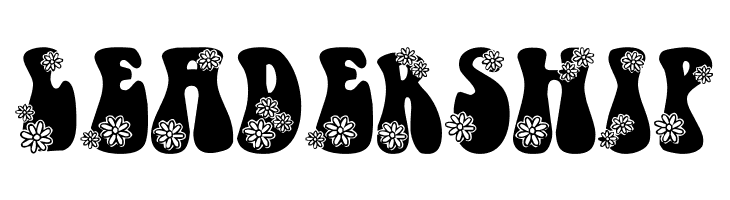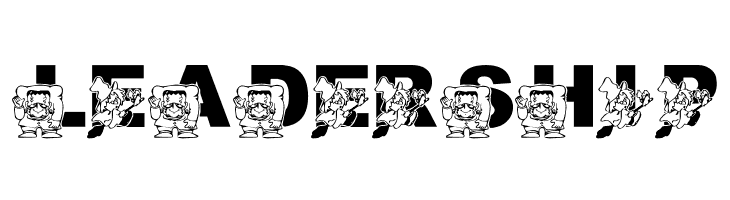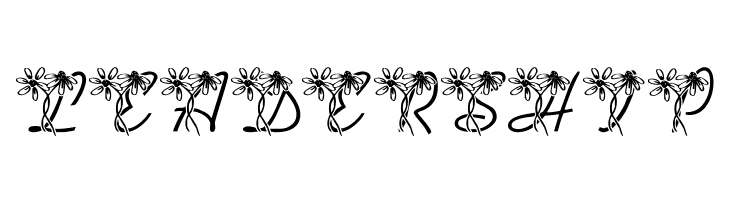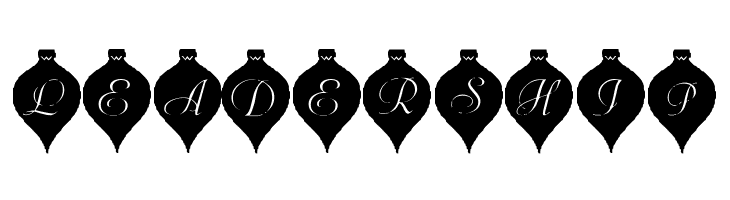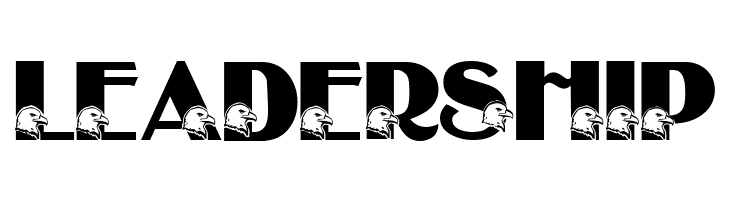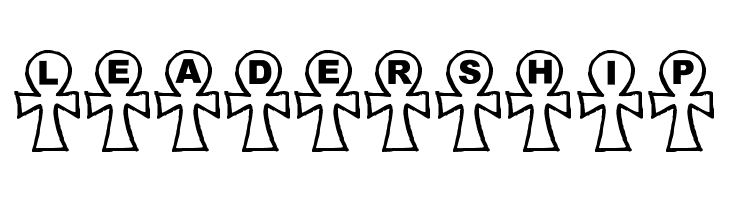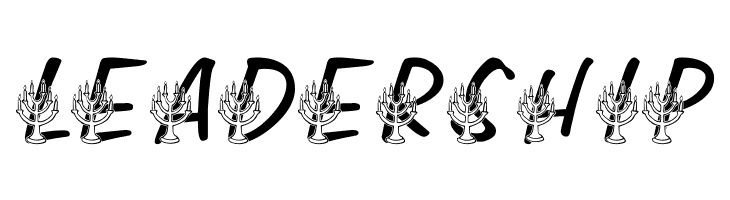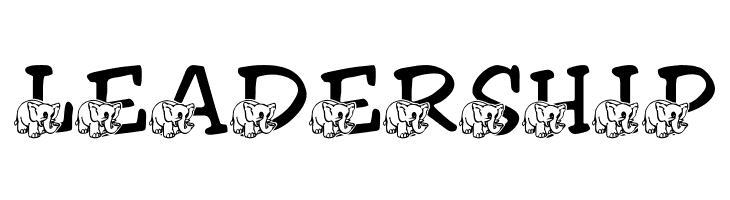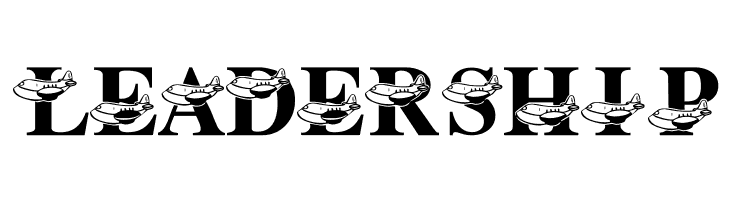
A playful font with bold letters and cartoon characters in costumes.
A whimsical font with daisy-like floral embellishments on each character.
An elegant, ornament-themed decorative font with high contrast script characters.
A bold, decorative font featuring an eagle motif integrated into each letter.
A playful font with soccer ball motifs, ideal for sports-themed designs.
A decorative font with an integrated ankh symbol in each character.
A bold, decorative font with integrated face illustrations in each letter.
A whimsical, castle-themed decorative font with bold, enchanting characters.
A decorative font with bold, italicized letters and candelabra motifs for a festive look.
A bold, decorative font with floral patterns integrated into each character.
A bold, playful font with elephant illustrations accompanying each letter.
A bold serif font with integrated airplane illustrations for a playful touch.
A bold, playful font with cartoon characters embedded in each letter.
A decorative, floral-patterned uppercase font perfect for enchanting designs.
A whimsical, cartoon-inspired font with bold, script-like letters and playful characters.
A bold, decorative font featuring unique emblematic designs within each character.
A decorative script font with integrated butterfly motifs.
A festive, decorative font with holly motifs, perfect for holiday themes.
A bold, decorative font with greenhouse-themed embellishments on each letter.
A decorative, holiday-themed font with script letters inside ornate ornaments.
A decorative font with winged embellishments, ideal for fantasy-themed projects.
A decorative and artistic font with intricate feather-like details.
A bold, basketball-themed font with integrated player silhouettes.
A bold, playful font with superhero-themed embellishments on each letter.
A playful, marshmallow-themed decorative font with bold, shadowed characters.
An ornate, Claddagh-inspired decorative font with intricate designs.
A bold, dynamic font with a sporty, energetic style.
A festive, decorative font with holly embellishments on each character.
A bold, sports-themed font with integrated basketball motifs.
An ornate script font with floral embellishments, perfect for elegant designs.
A bold, decorative font featuring lion motifs within each character.